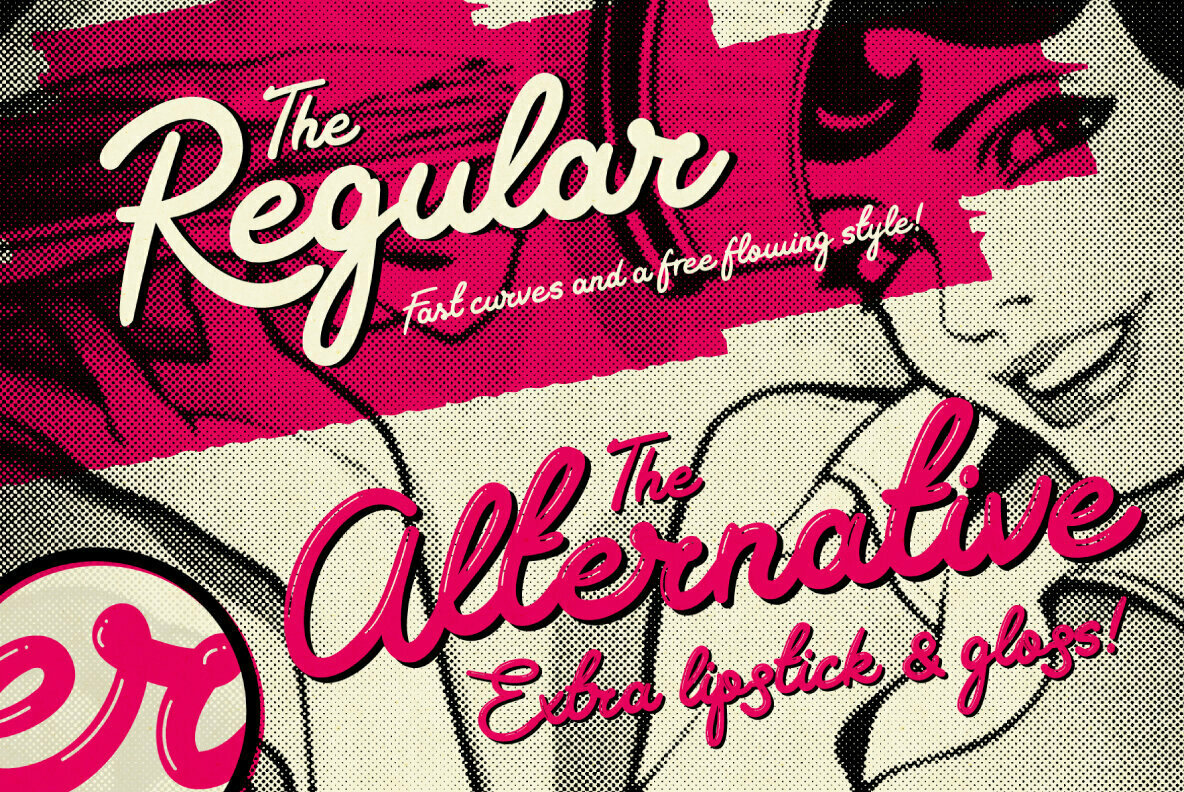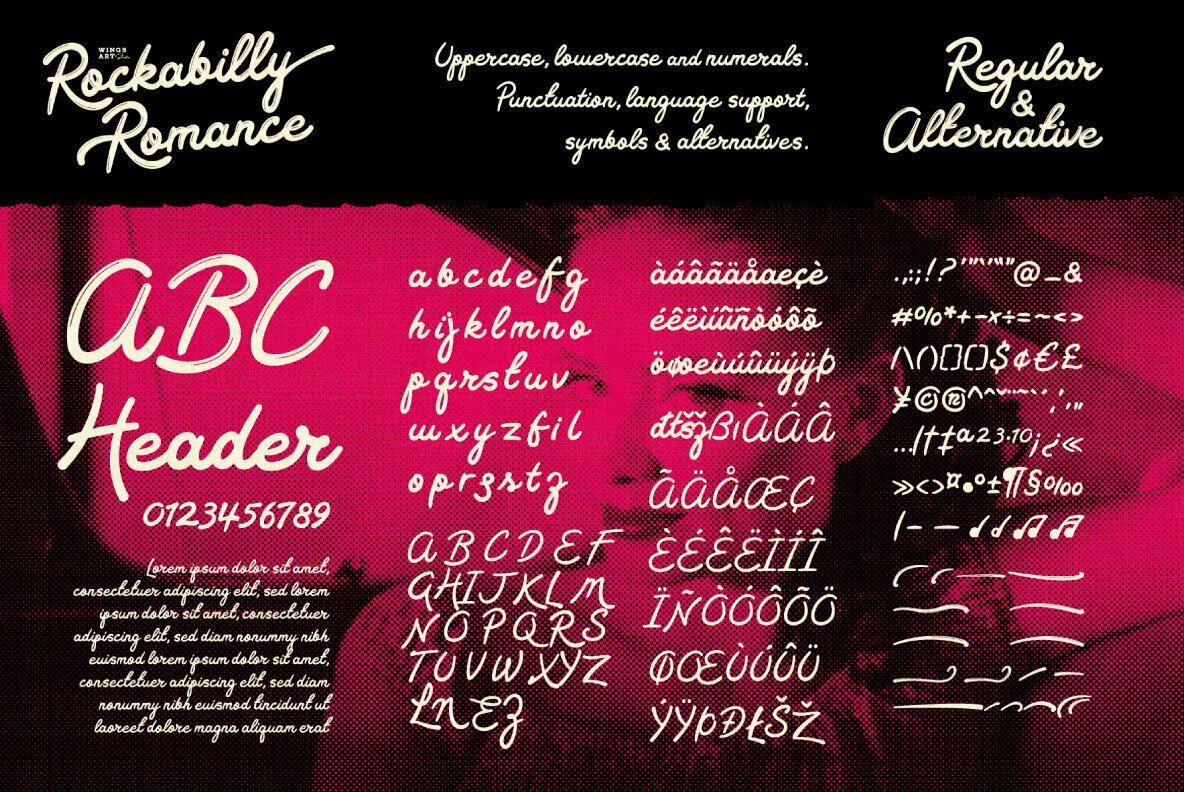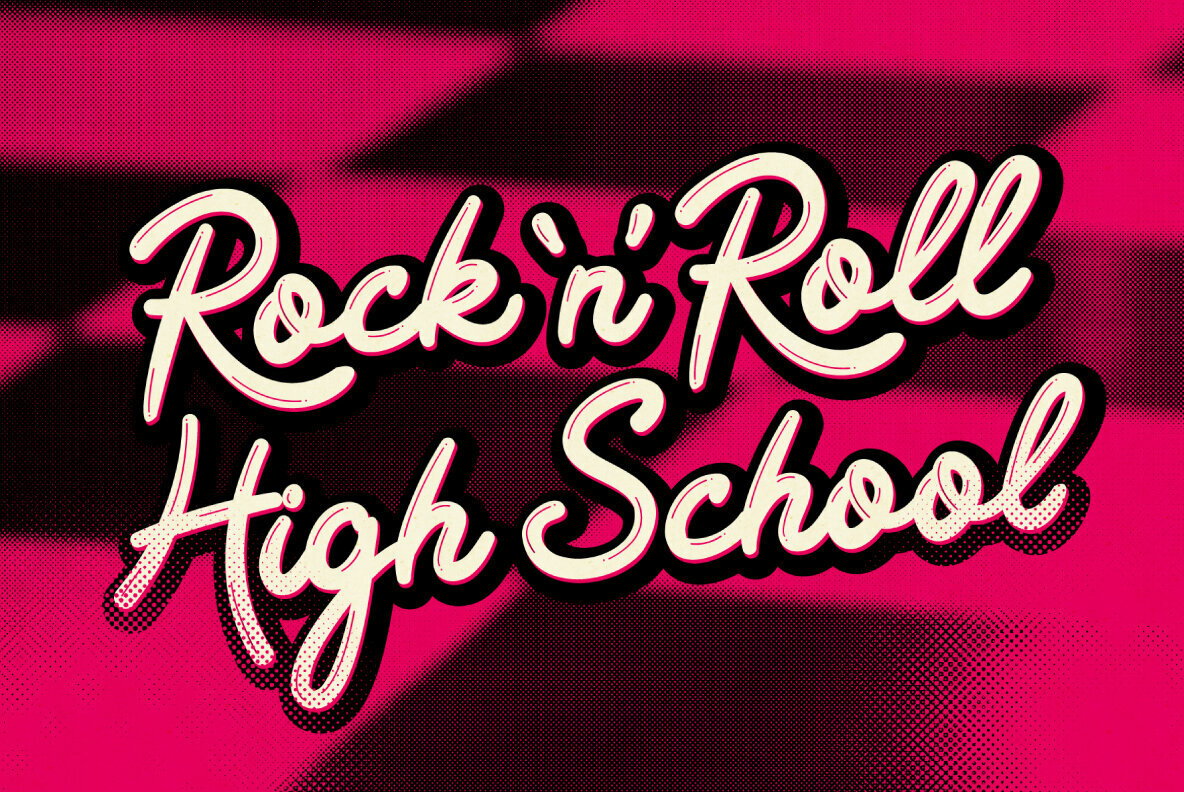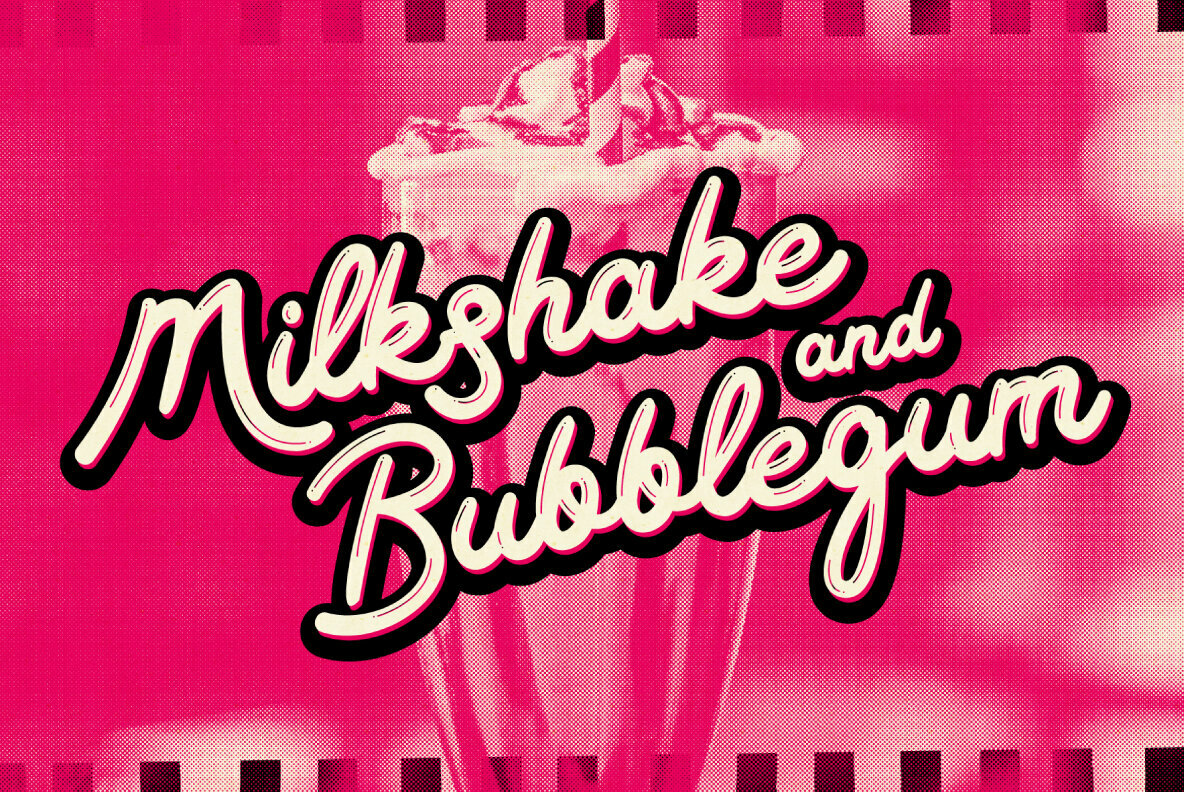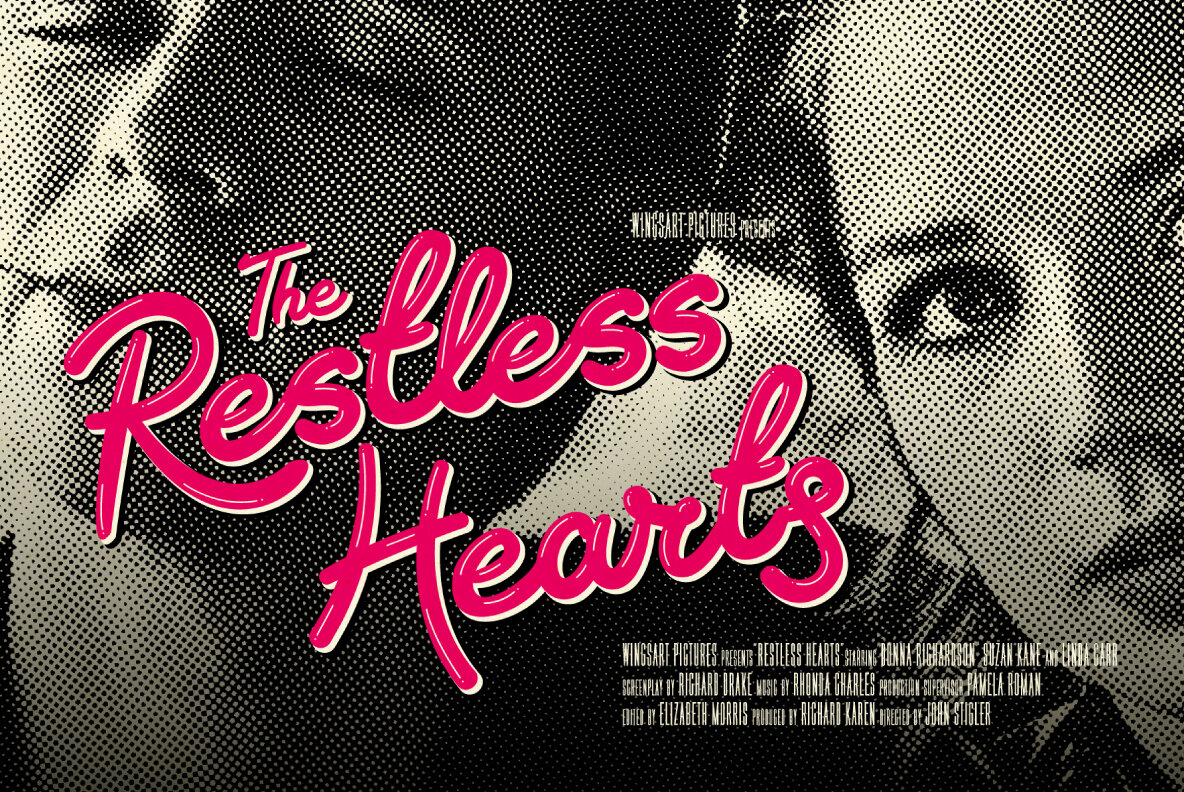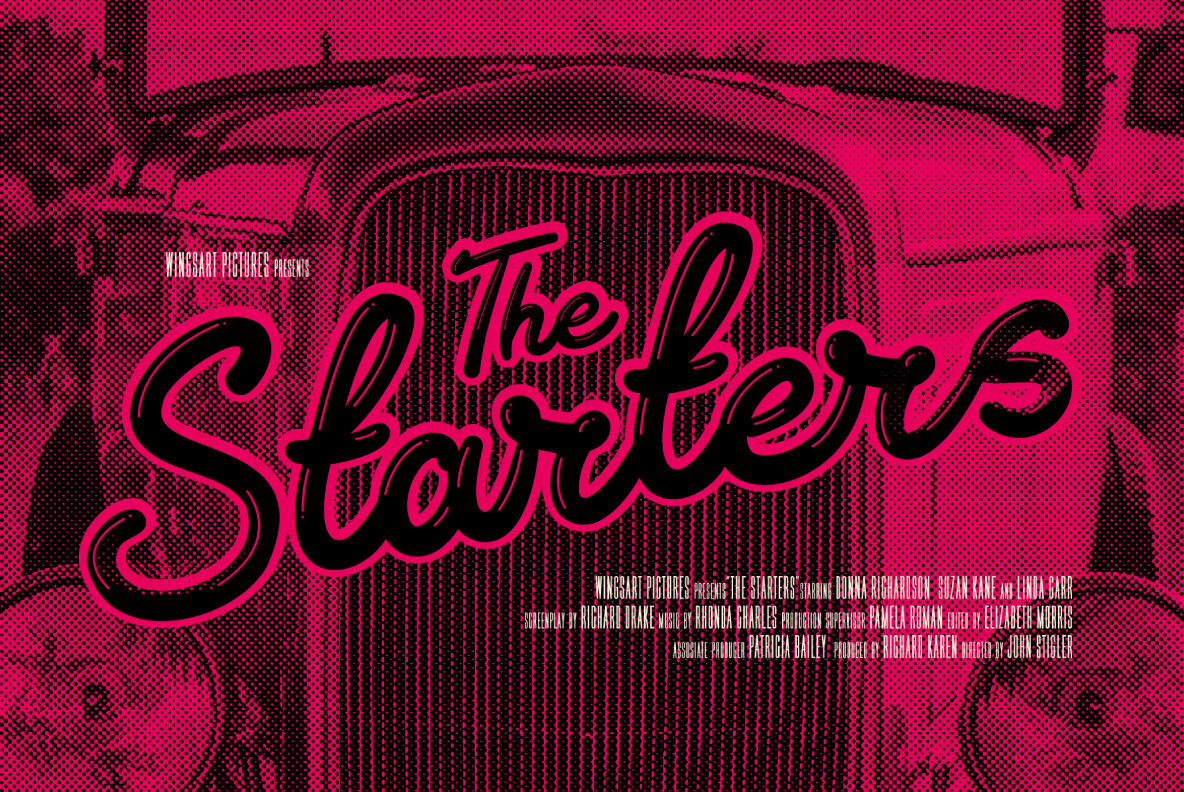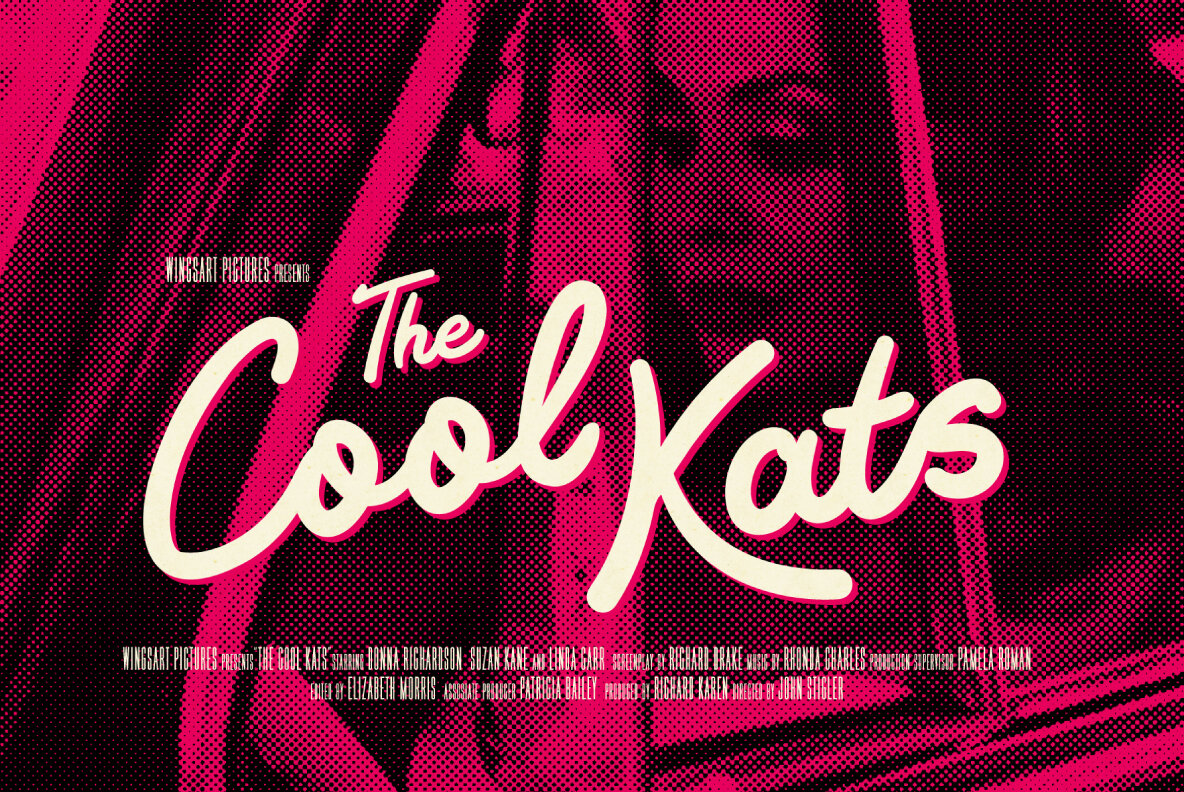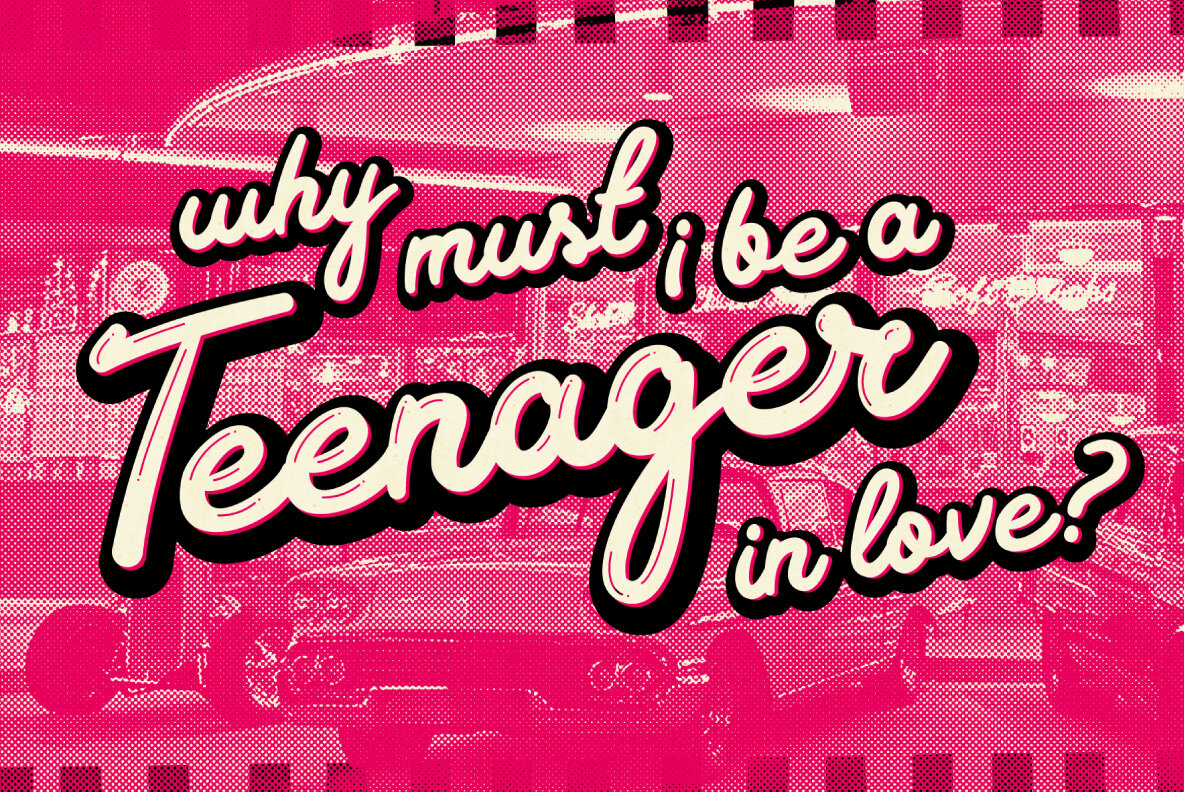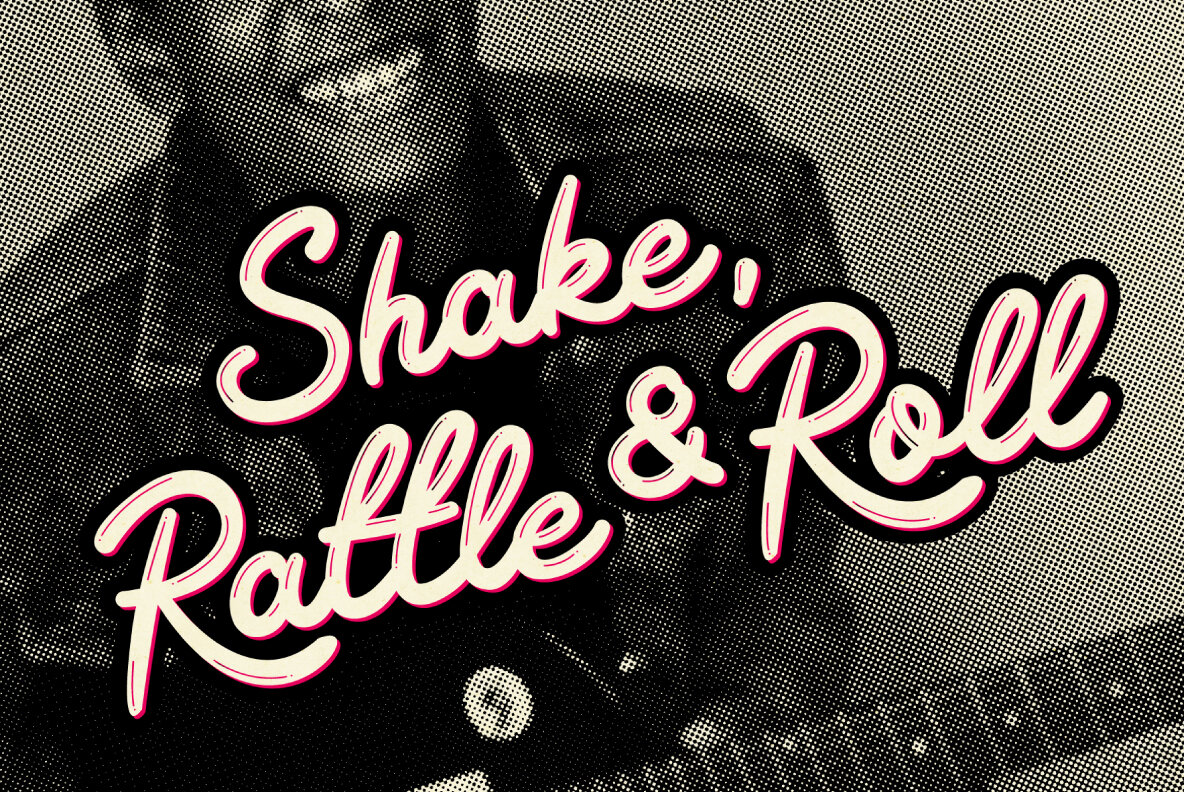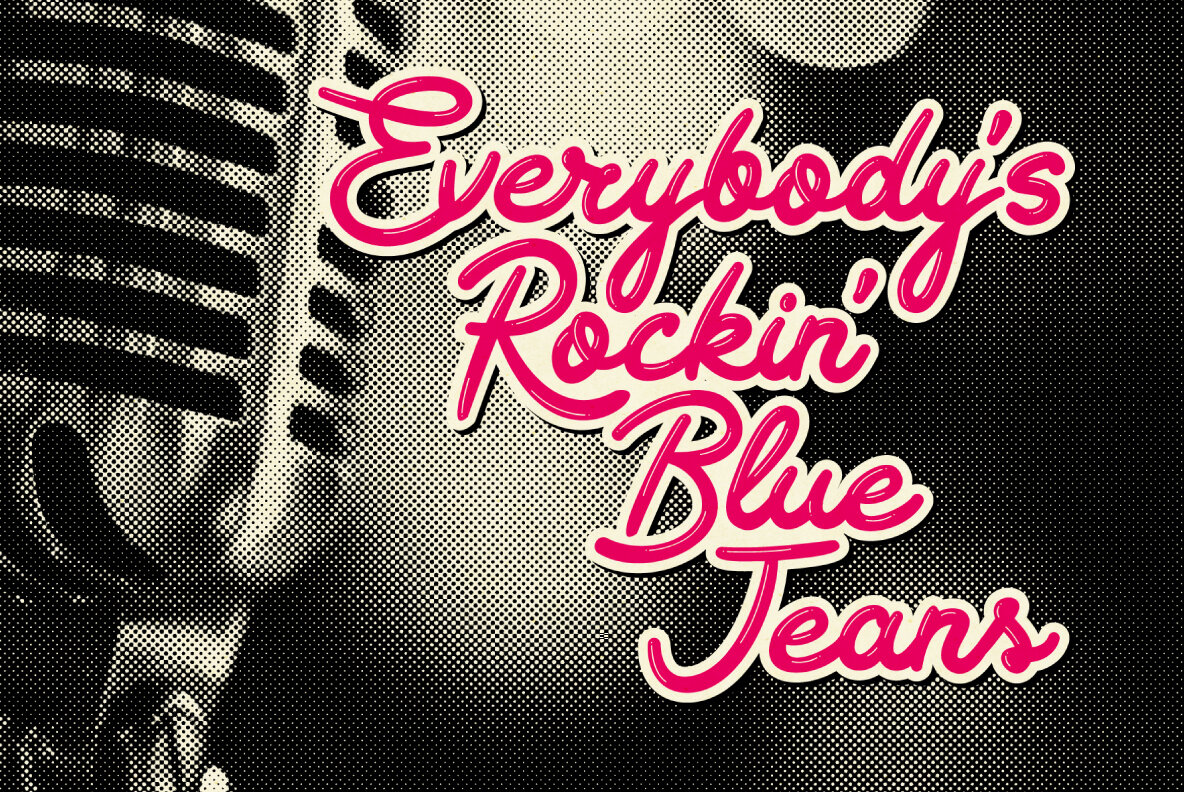
Rockabilly Romance Font
Rockabilly Romance Alternative
Rockabilly Romance Regular
Rockabilly Romance Underlines
Inspired by the vibrant spirit of 1950s Americana, Rockabilly Romance by Christopher King provokes a sense of nostalgia with every swirling letter. The font's hand-crafted, free-flowing style brings to mind bustling retro diners, the charm of a drive-in movie, and the undeniable allure of the Rock ’n’ Roll era. Rockabilly Romance offers two variations: a fast-curved script and an alternative version featuring a glossy lipstick highlight. The versatility of Rockabilly Romance makes it ideal for bold displays like menu headers, posters, movie titles, and album covers. Its distinctive style is showcased in the accompanying visuals, sparking endless possibilities for creative projects.Rockabilly Romance: A Script Font With 1950s Flair
Based near Bristol, UK, Christopher King is the designer behind Wingsart Studio, a creative practice specializing in hand-drawn lettering and bespoke typography for film and television. Acting as both a working portfolio and an independent font foundry, Wingsart Studio showcases King’s deep appreciation for mi...